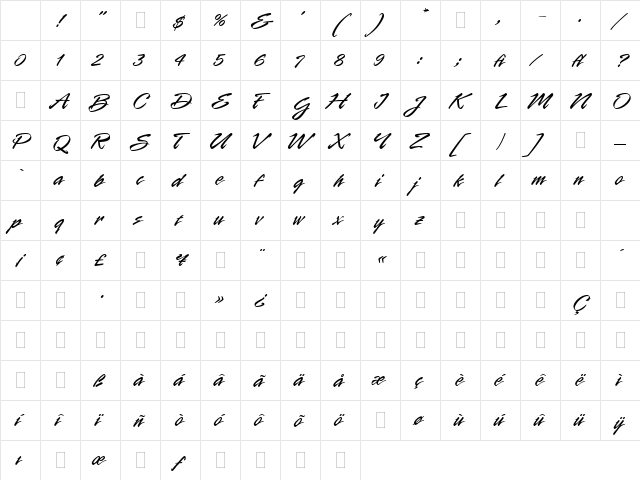
Complete Rapier Let Plain glyph index. Displaying only characters natively supported by Rapier Let Plain font.
Rapier is a composed and adaptable typeface that performs quietly and consistently across a wide range of design contexts.